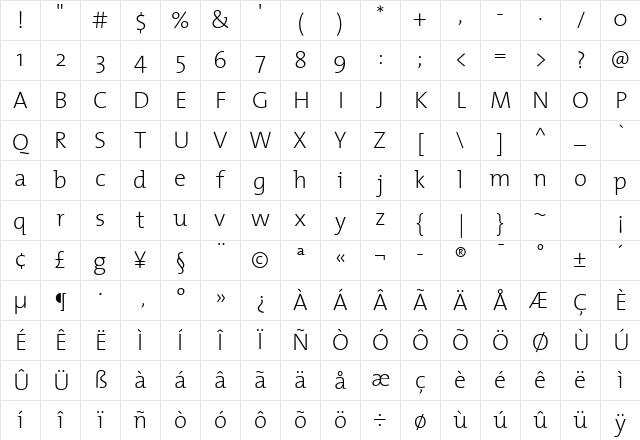
The Mix Extra Light- ExtraLight Plain
Style: ExtraLight Plain
Foundry: Copr. Luc as de Groot
Design Context for The Mix Extra Light-
The Mix Extra Light- is a composed and adaptable typeface that performs quietly and consistently across a wide range of design contexts. Its slender proportions lend an understated elegance to any composition.